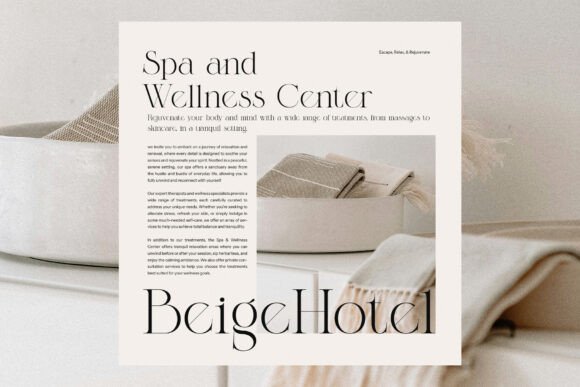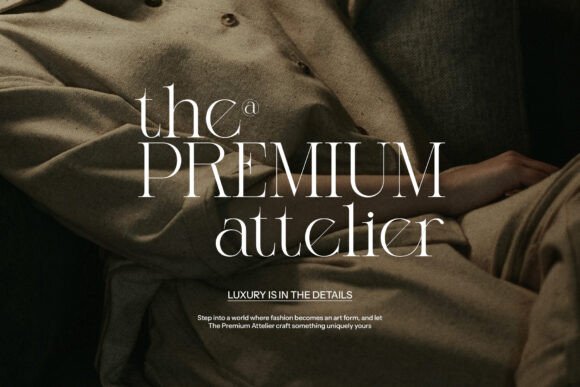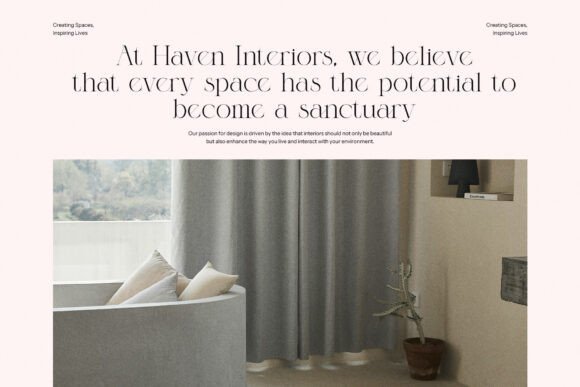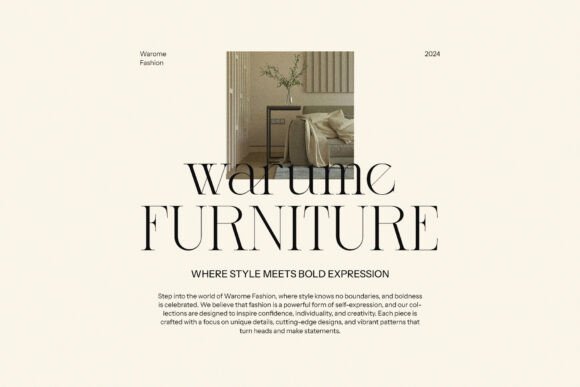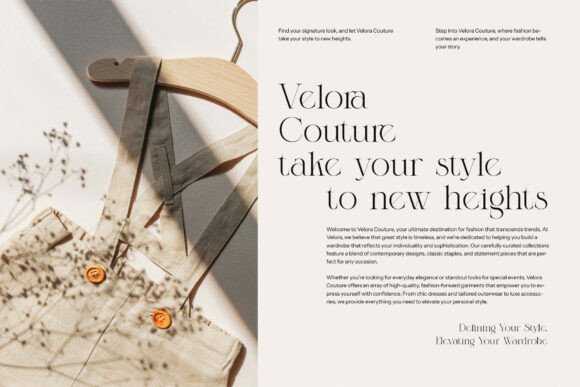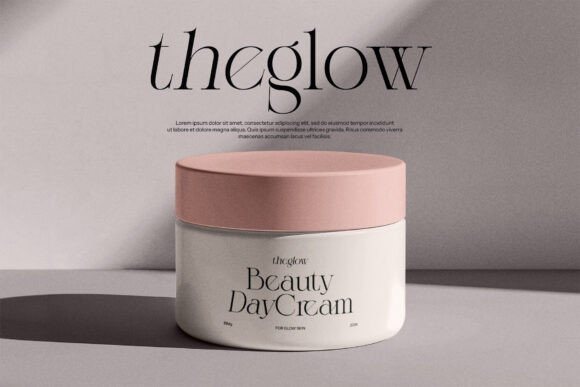
Introduction to Eglen Font
Have you ever found yourself staring at a blank canvas, searching for the perfect font to elevate your creative project? The struggle is real, but we’ve got the solution for you. Meet the Eglen Font, a luxurious and sophisticated serif font that’s about to become your new go-to design resource.
With its high quality and elegant feel, the Eglen Font is perfect for designers looking to add a premium touch to their branding projects, logos, and more. Whether you’re working on a free download or a paid design project, this font is sure to impress. Its beautiful ligatures and alternate options provide endless creativity and flexibility, making it a valuable addition to any designer’s toolkit.
Imagine being able to take your designs to the next level with a font that’s both stylish and easy to read. The Eglen Font makes it possible, with a transparent background that allows it to seamlessly blend with any design. Get ready to elevate your creative projects with this stunning font.
Key Features of Eglen Font
- Designed to be highly versatile, suitable for use in a wide range of creative applications, from branding to digital art.
- Includes a range of unique characters and glyphs, making it an excellent choice for designers seeking a distinctive look.
Honest Review: Eglen Font
What works well with the Eglen Font is its high quality design and versatility. The font is available in various weights and styles, making it perfect for both body text and headlines. I particularly enjoyed working with its transparent background, which allowed me to layer it seamlessly with other design elements.
- ✨ High-quality design and versatility
- ✨ Suitable for various design projects, including body text and headlines
- ✨ Transparent background for easy layering
Getting the Most Out of Eglen Font
To get the most out of Eglen Font, use it in combination with other design resources, such as graphics and images. This will help create a cohesive and visually appealing design. Additionally, experiment with different font sizes and styles to add depth and interest to your design.
Eglen Font is commonly used in social media graphics, presentations, and documents. Its transparent background makes it a great choice for designs that require a clean and minimalist look. Whether you’re working on a creative project or a professional presentation, Eglen Font is a great design resource to have in your arsenal.